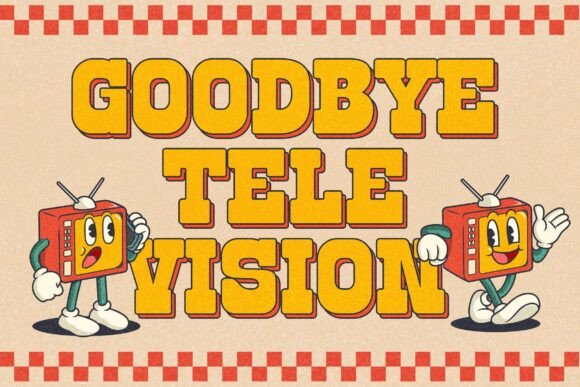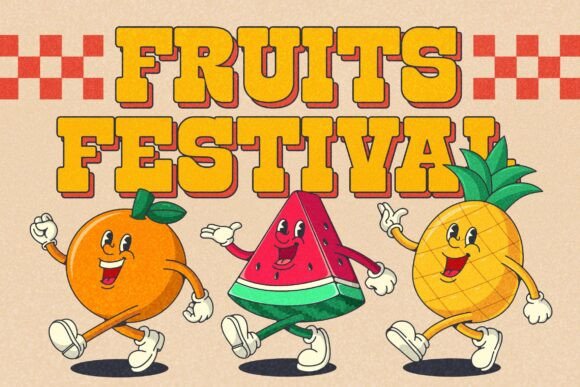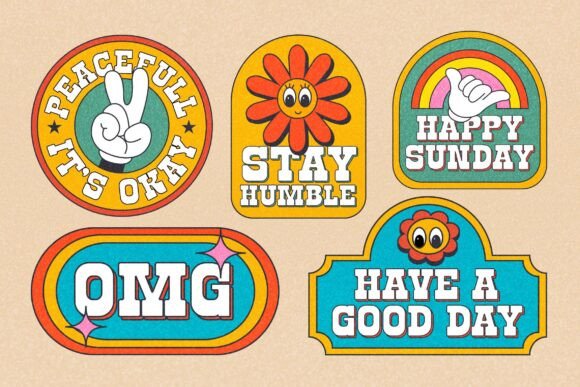
Retro Block Font
About the Retro Block Font
Meet Retro Block Font, a stunning font that brings a touch of elegance and professionalism to any design. Retro Block is a retro slab font that is made for any professional project branding, such as logotype, watermarks, poster, branding, promotions, product packaging, etc. Every letter has a playful retro style design.
Retro Block excels in headline treatments, short impactful phrases, and logo design where its bold, playful character can shine. It’s ideally suited for projects needing a vintage feel with a modern twist, such as retro-themed apparel branding, packaging for craft goods, or posters promoting events with a playful, nostalgic vibe. Avoid using it for body copy or extended text; its slab serifs can strain readability in large blocks of text.
Pairing Retro Block with a clean sans-serif like Open Sans for body text provides excellent contrast and readability. For a more playful aesthetic, consider pairing it with a handwritten script font, but ensure the script is legible enough to balance the bold Retro Block. Alternatively, a geometric sans-serif can create a modern, balanced feel.
The font’s overall personality is bold and playful, yet retains a level of sophistication. It is best suited for brands that value a retro aesthetic, without appearing dated or overly whimsical.
Retro Block Font Usage Examples
Retro Block Font Example